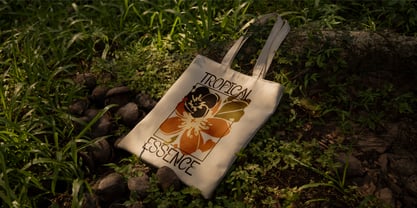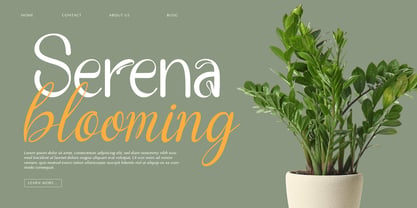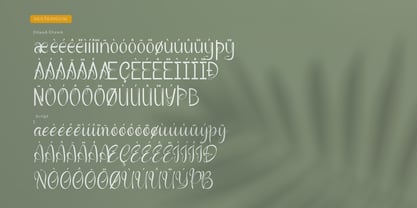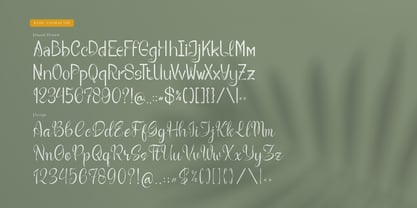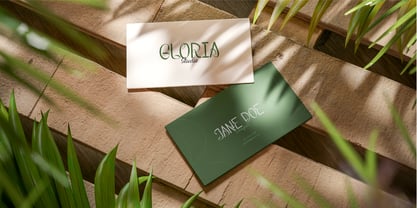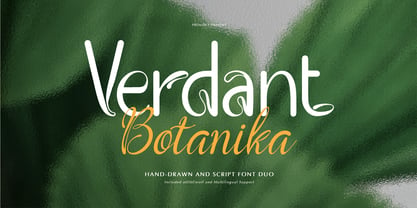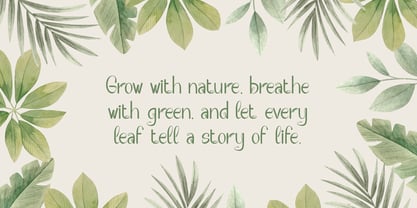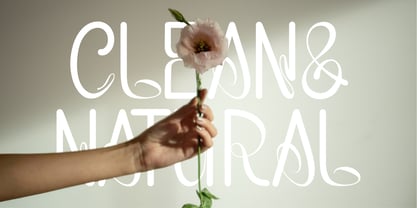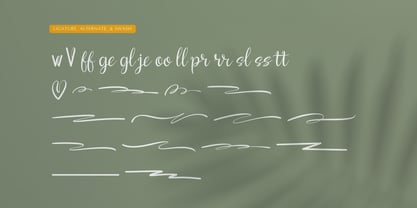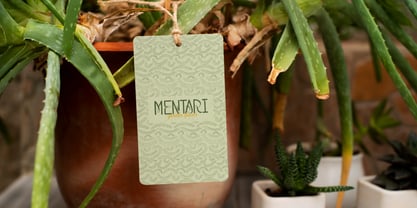
Verdant Botanika
The Verdant Botanika Font Family was designed by and published by Tini Fitriani. Verdant Botanika contains 2 styles and family package options. More about this family
Verdant Botanika | Hand Drawn Script Font Duo, from Gracetypestudio, suitable for any projects such as: logos, branding projects, homeware designs, product packaging, mugs, quotes, posters, shopping bags, t-shirts, book covers, name card, invitation cards, greeting cards, label, photography, watermark, special events, and all your other lovely projects that need a Hand Drawn Script Font Duo taste.